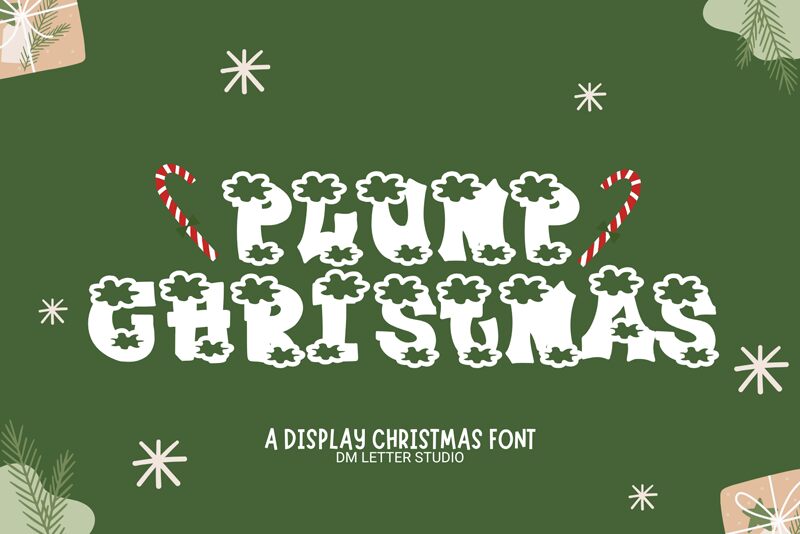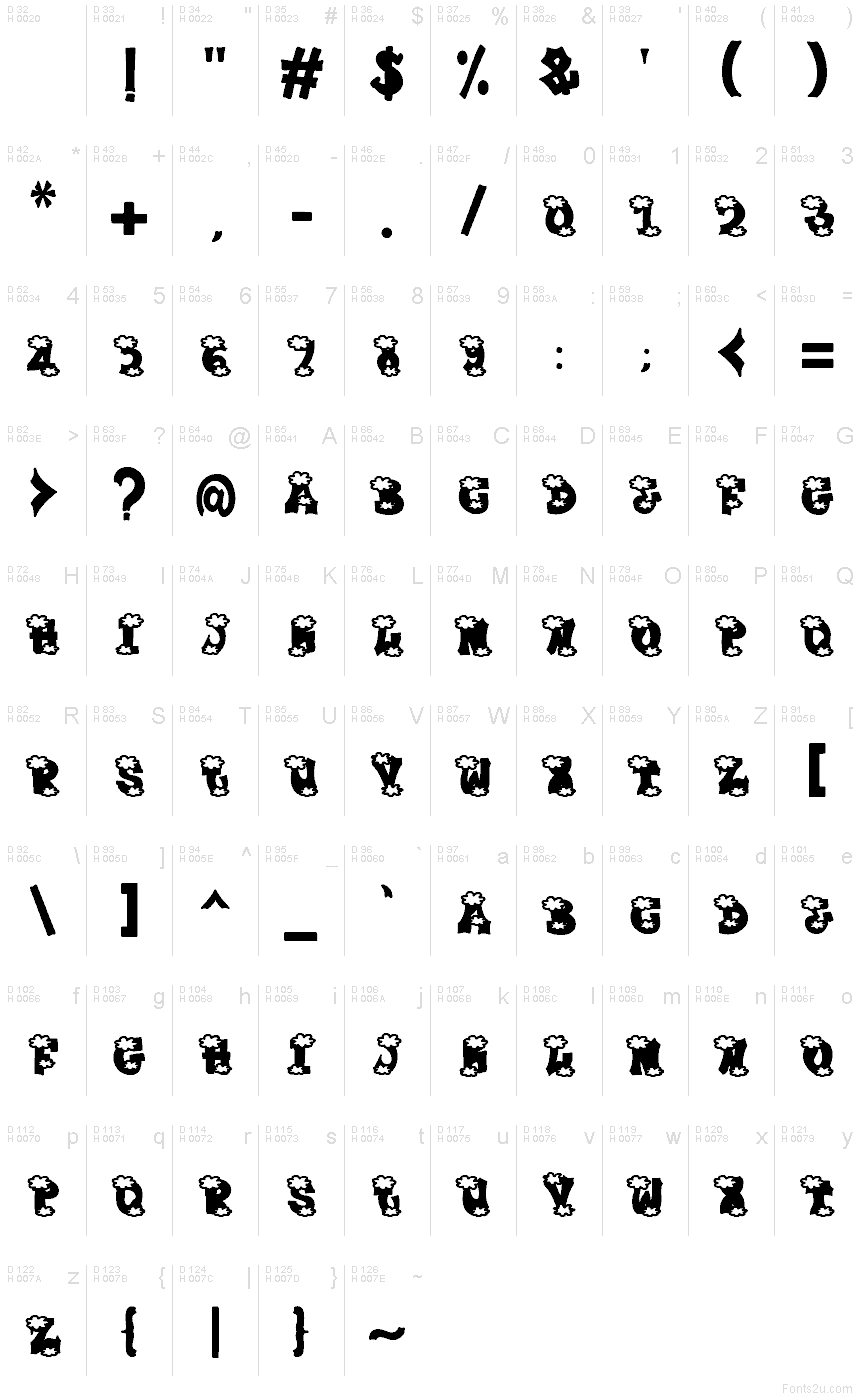
Plump Christmas font by DM Letter Studio - Dimas Prasetyo is a free decorative holiday typeface that turns every word into a puff of snow. Thick, inky-black letters are wrapped in chunky, cloud-like outlines that feel like frosted cookies on a baking sheet-soft, round, and full of cheer. The playful, irregular edges keep it from feeling stiff, so headlines look hand-crafted and full of warmth instead of stock or generic.
Using Plump Christmas font, you can instantly dress up gift tags, party invitations, kids’ crafts, posters, social media graphics, and cozy store signage. This free font shines at large sizes where all the fluffy detail can breathe; keep supporting text in a clean sans serif so the plump letterforms stay in the spotlight.
Plump Christmas